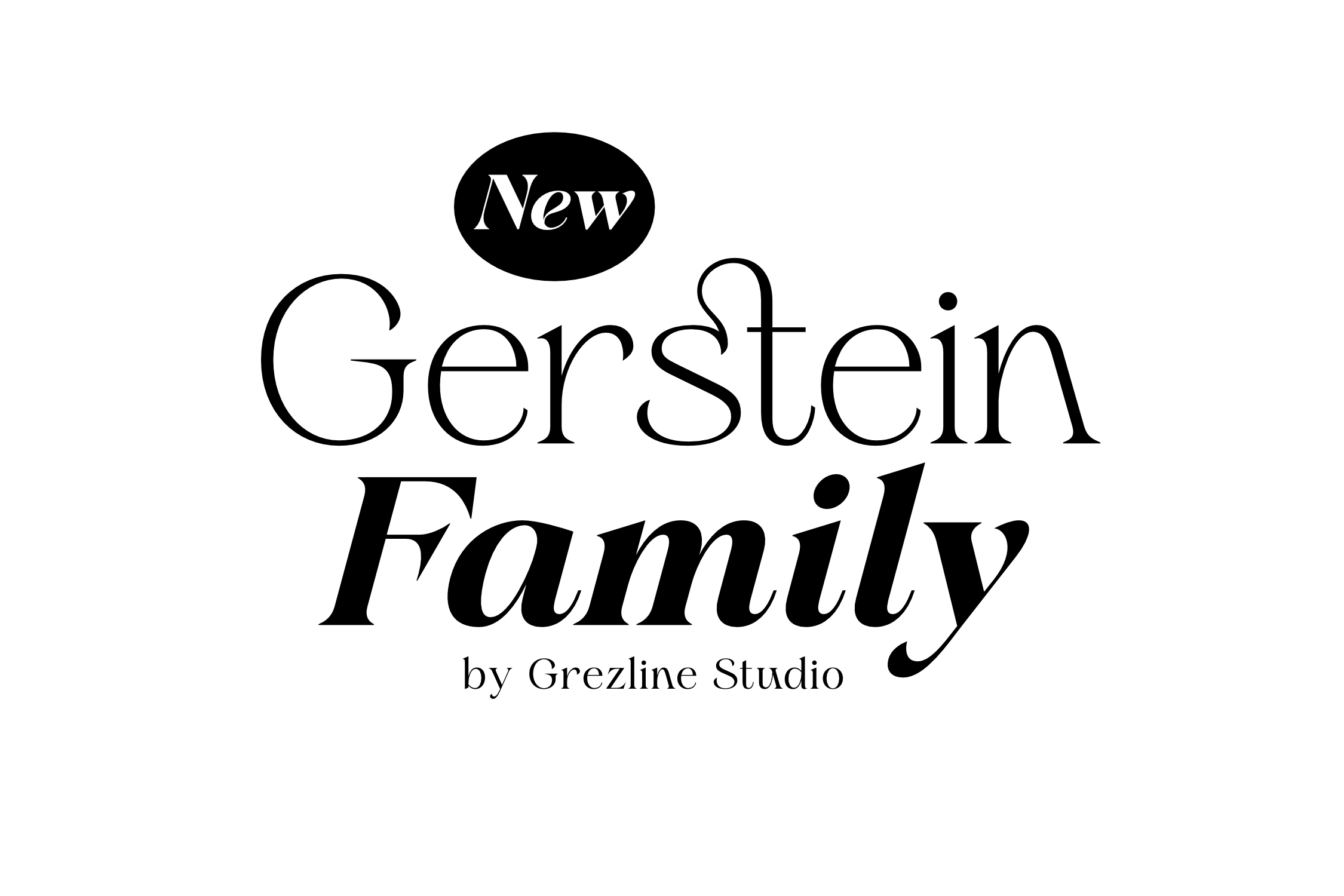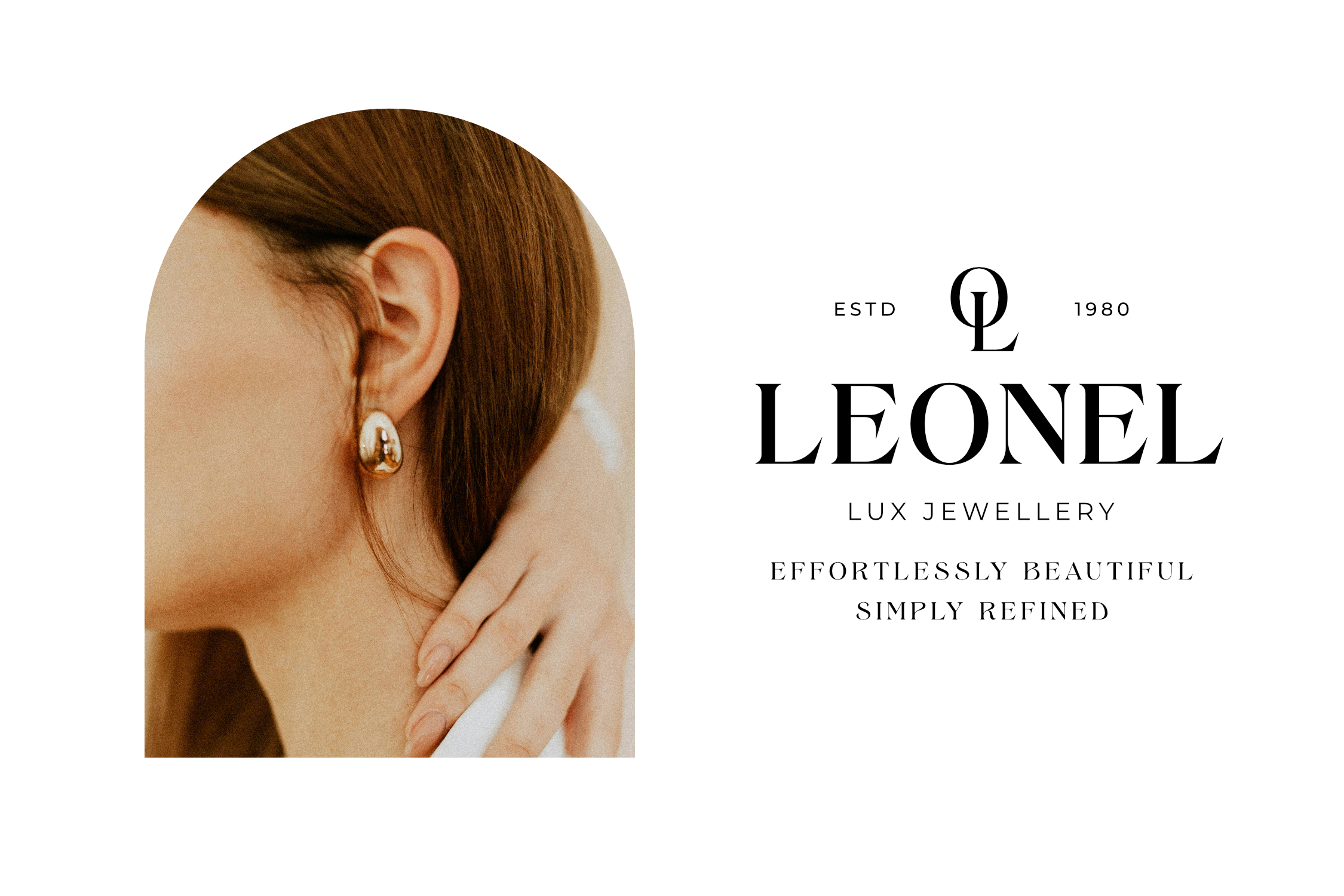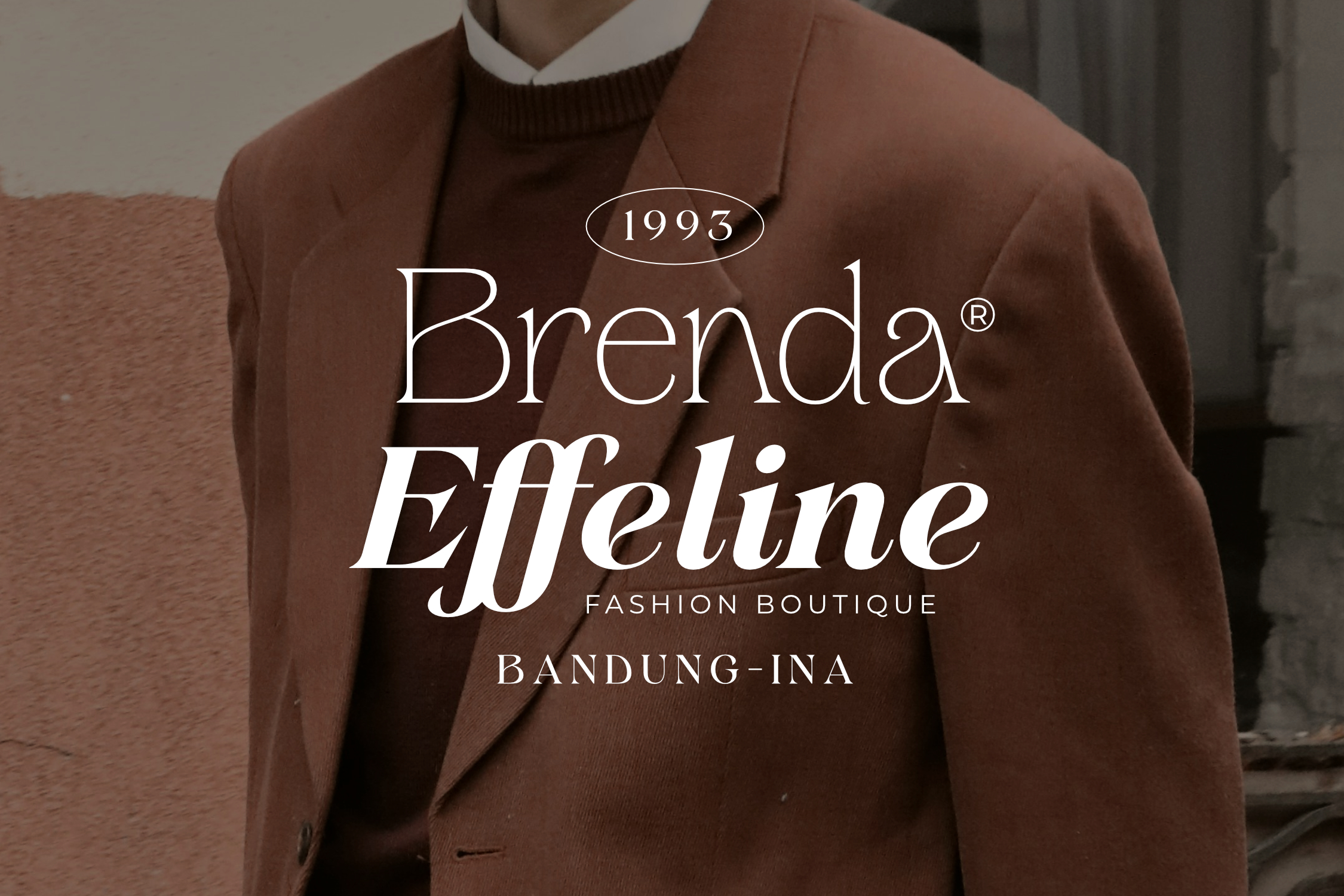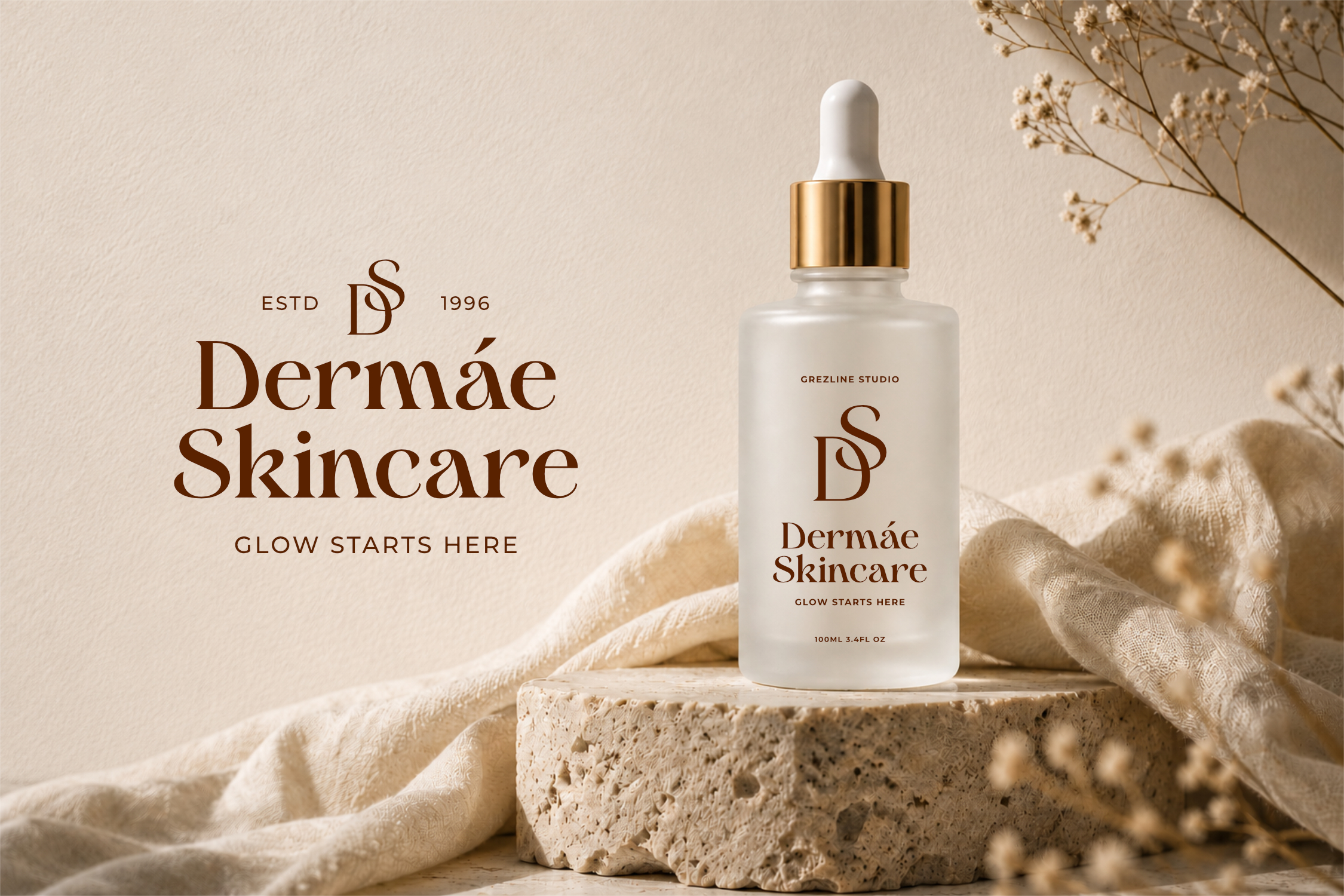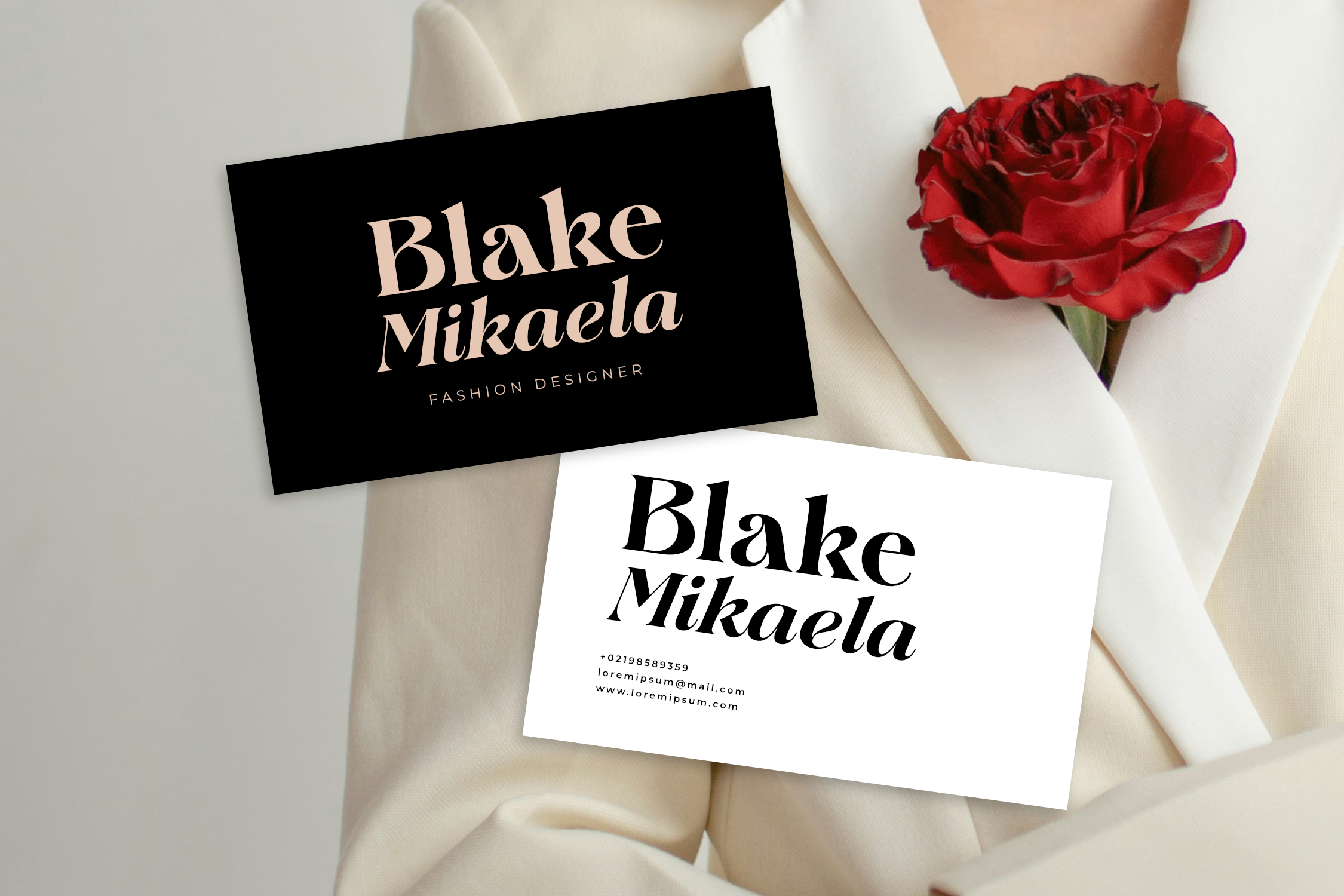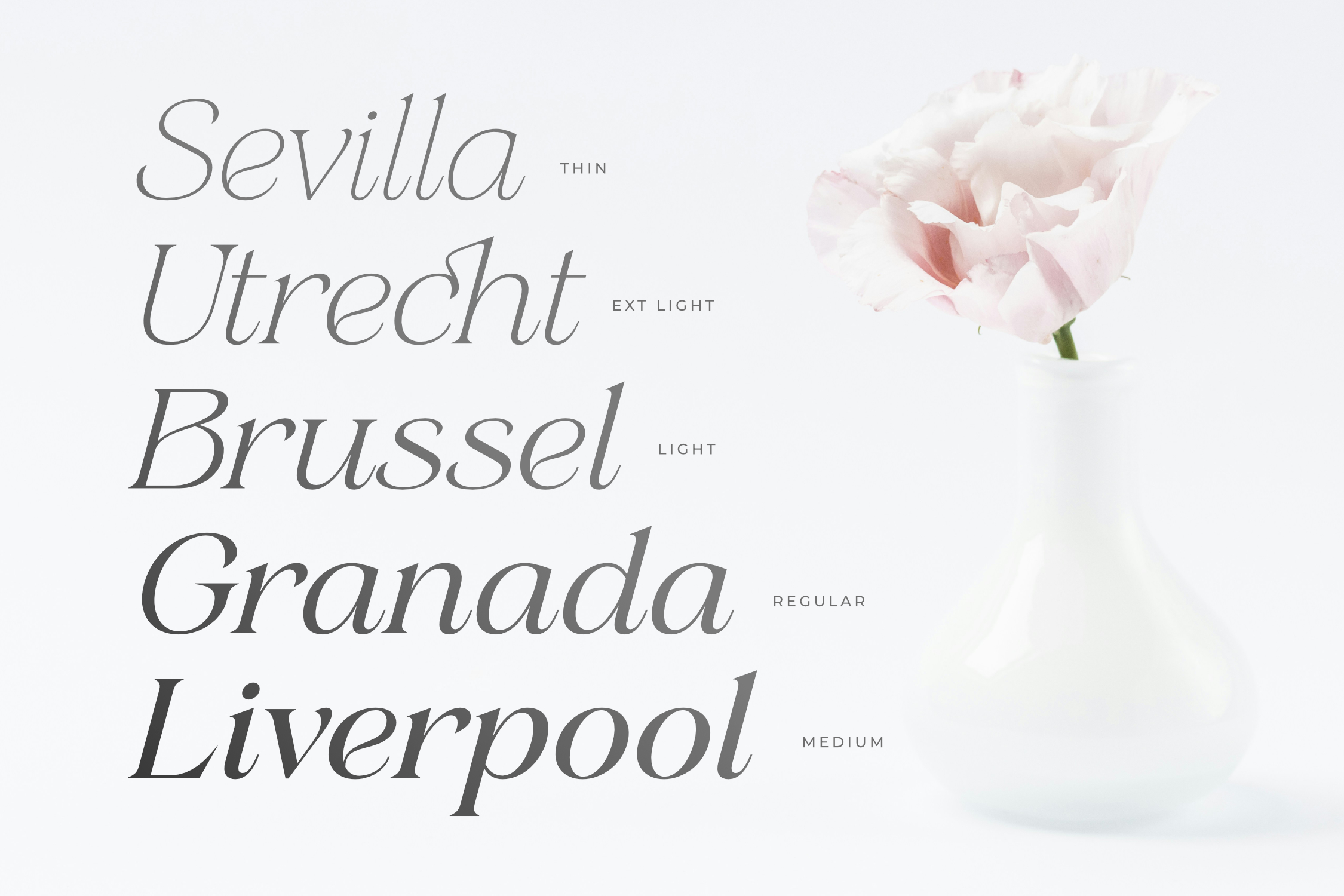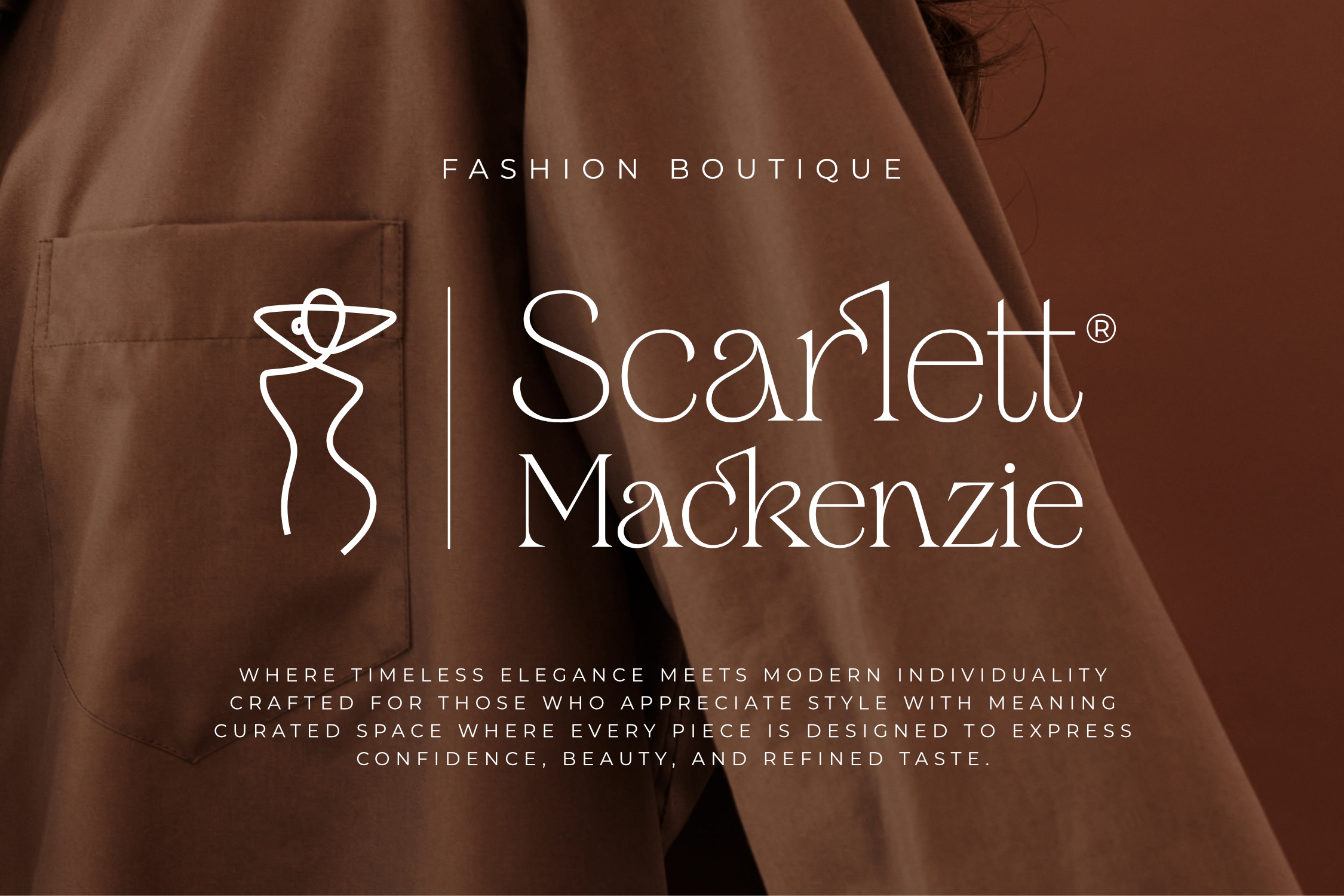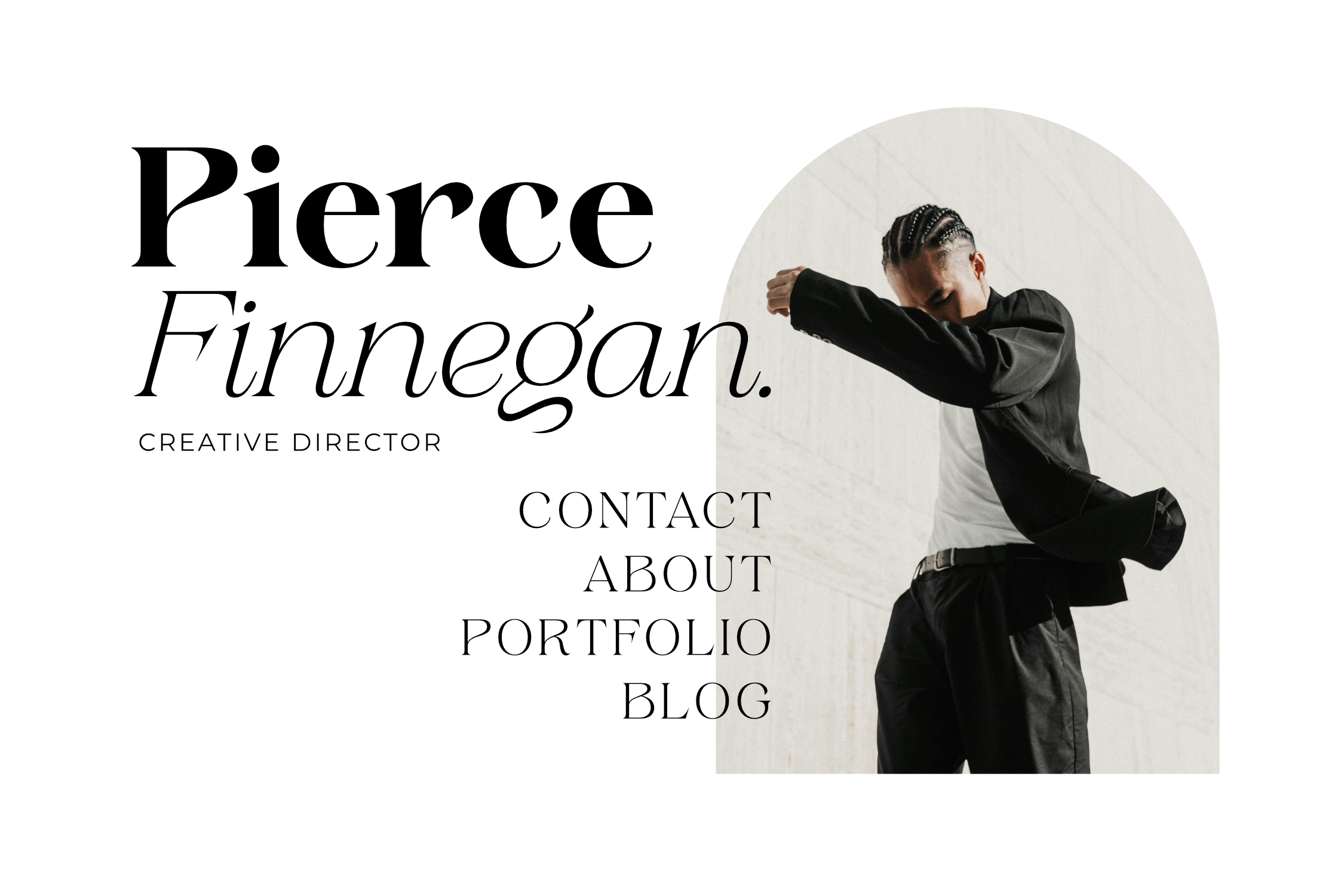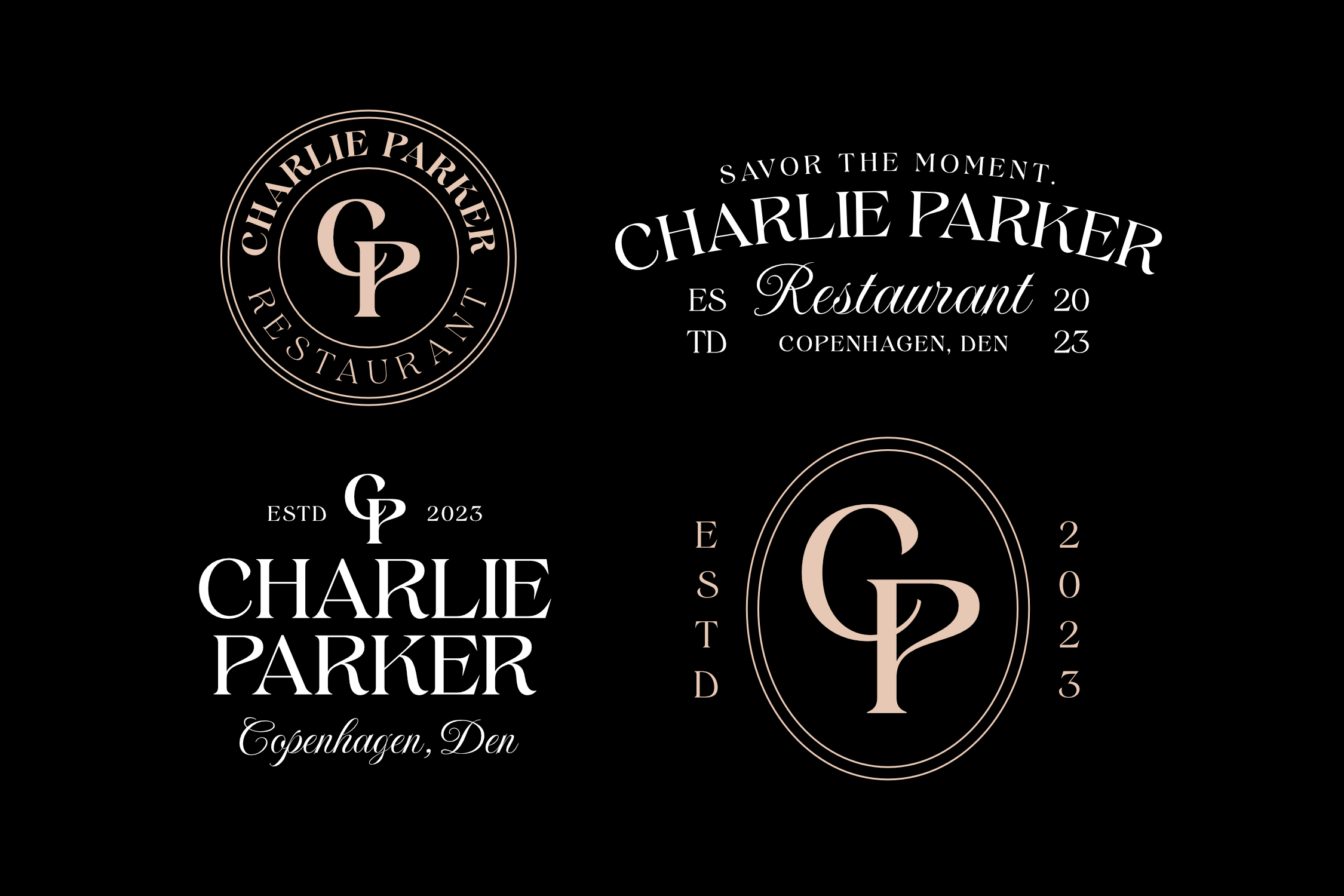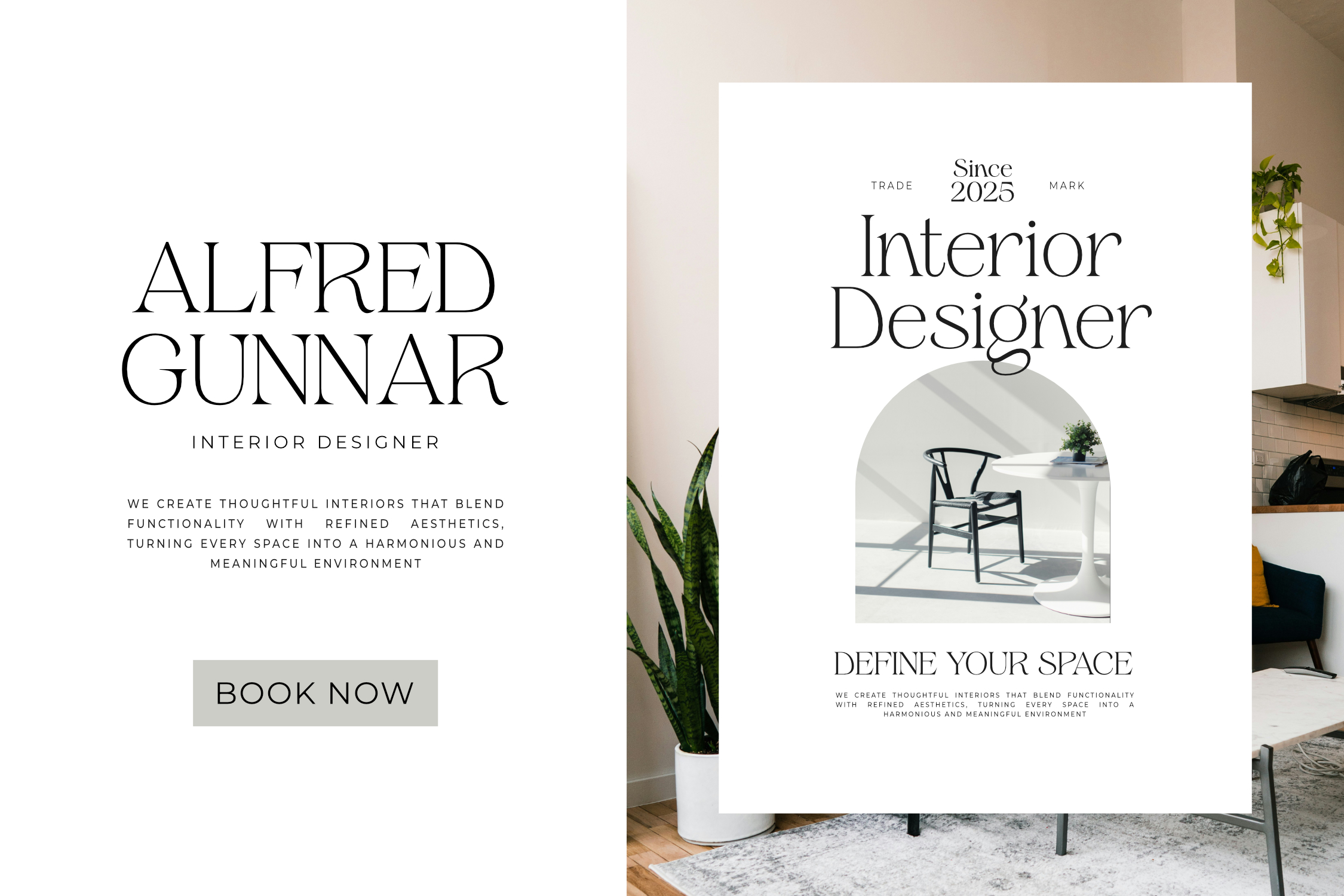
Hello everyone, let me introduce you my newest typeface: Gerstein, a refined modern serif collection designed to bring elegance, confidence and timeless sophistication to every creative project.
With its graceful letterforms, striking contrast, and versatile styles, Gerstein is perfect for luxury branding, fashion editorials, beauty packaging, premium logos, wedding stationery and high-end digital content. Whether you’re crafting a bold headline or a delicate visual identity, this typeface delivers a polished and memorable impression.
Gerstein – Font Family